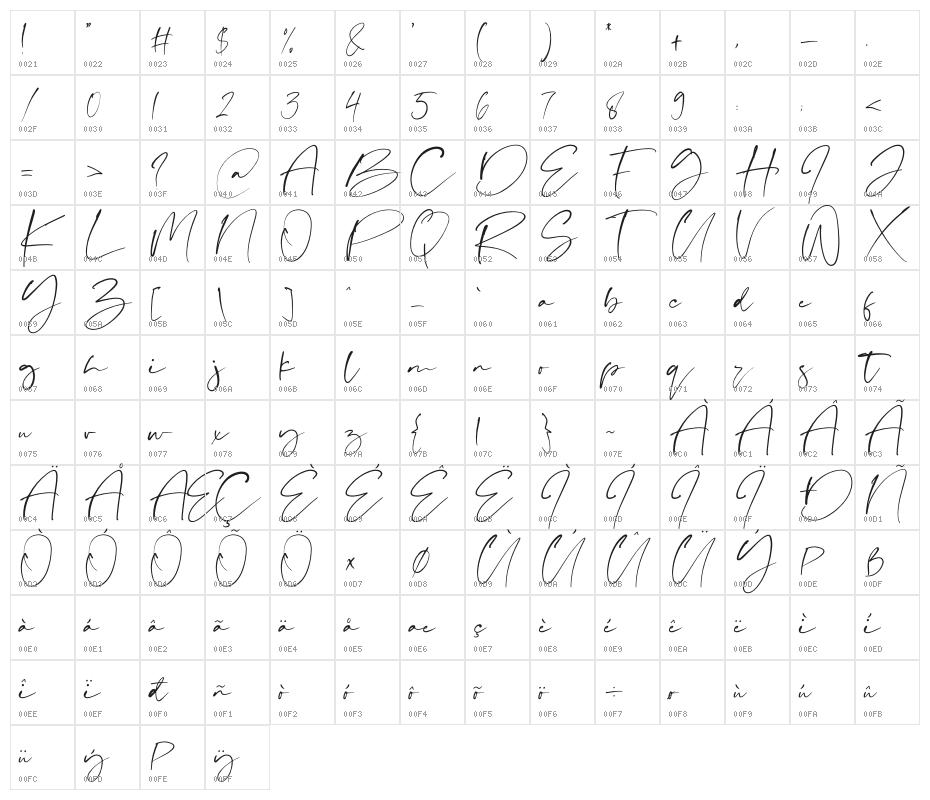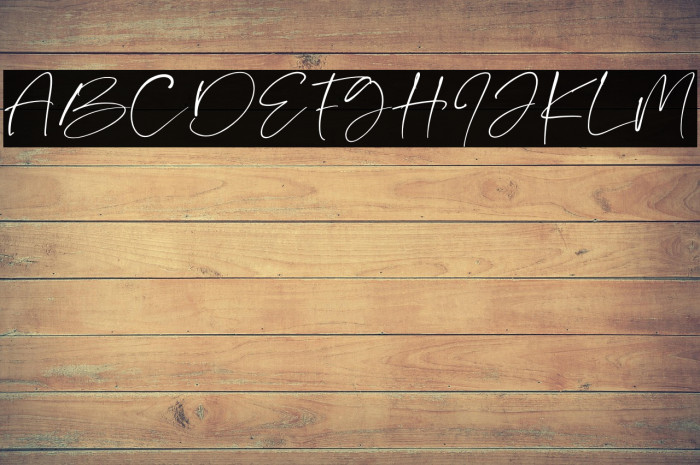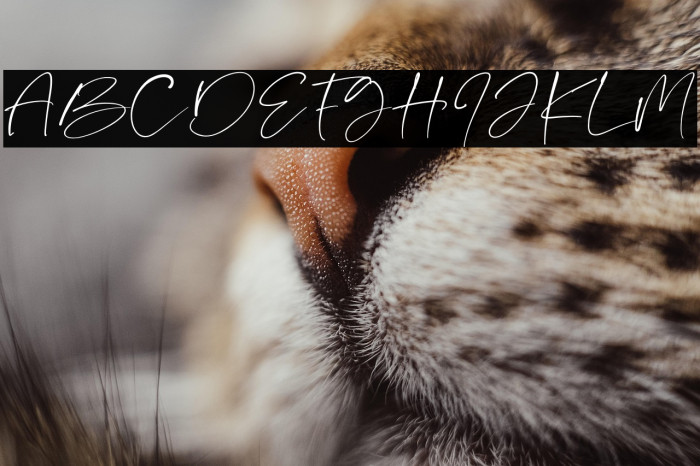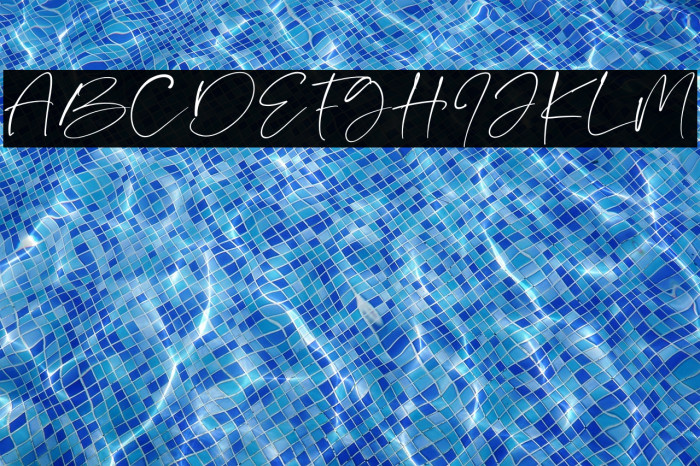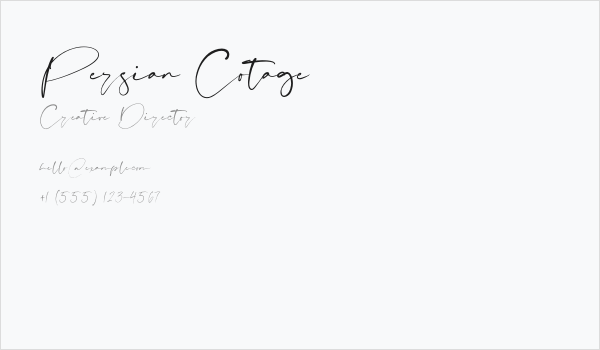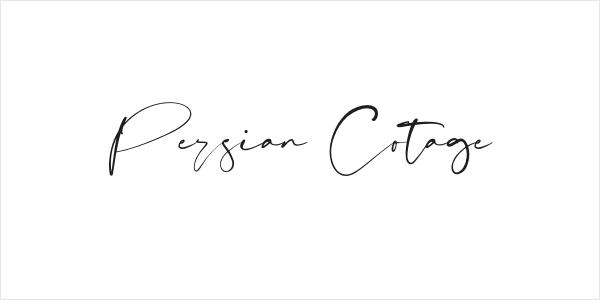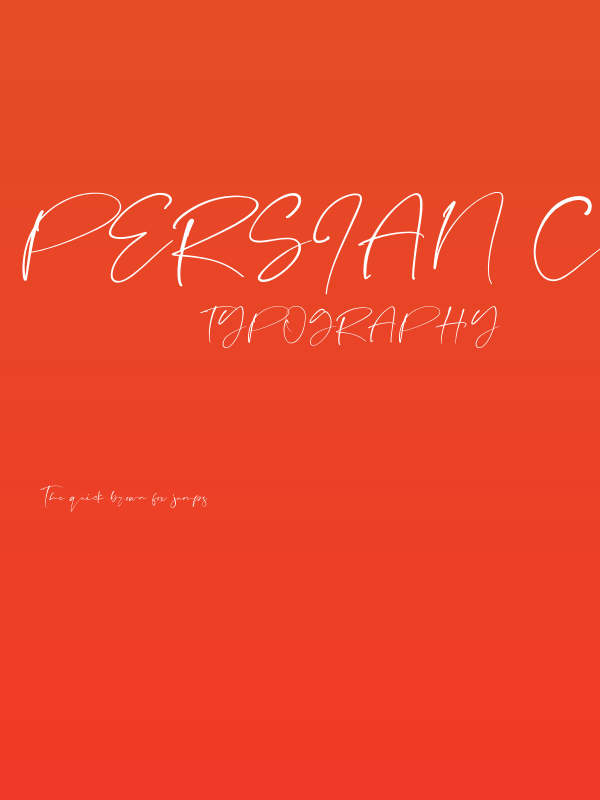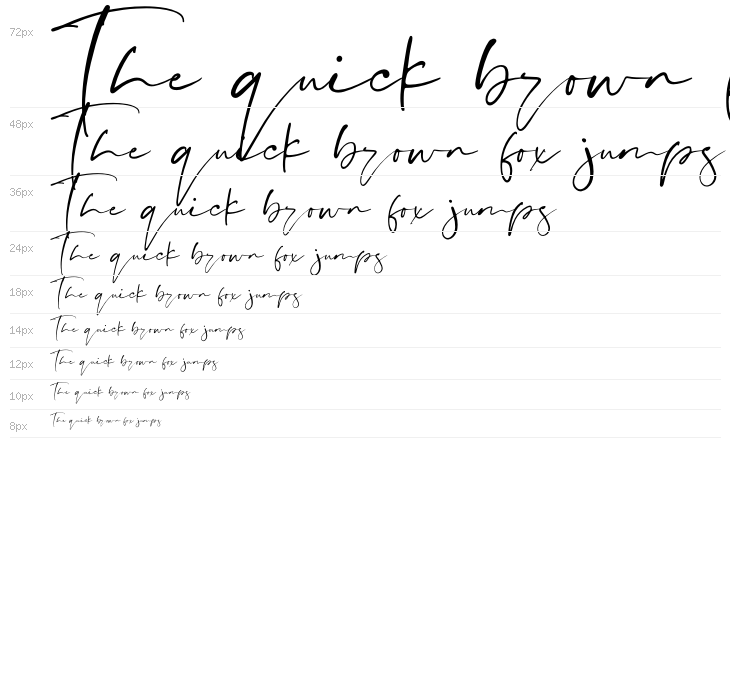
Persian Cotage Font
Persian Cotage Description
This font features a flowing, cursive style that mimics natural handwriting with a touch of elegance. The uppercase letters are slightly more structured, maintaining a consistent height, while the lowercase letters exhibit a more fluid and dynamic form. The strokes vary in thickness, adding a lively and personal touch to the text. The numbers and special characters follow the same cursive theme, ensuring a cohesive look throughout. This font is perfect for projects that require a personal, handwritten feel, such as invitations, greeting cards, or branding materials.
| Overall Style | Elegant, Handwritten |
| Proposed Projects | Ideal for wedding invitations, personal branding, greeting cards, and artistic projects. |